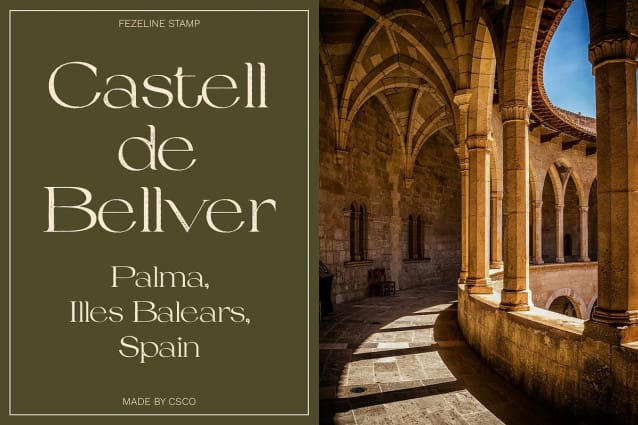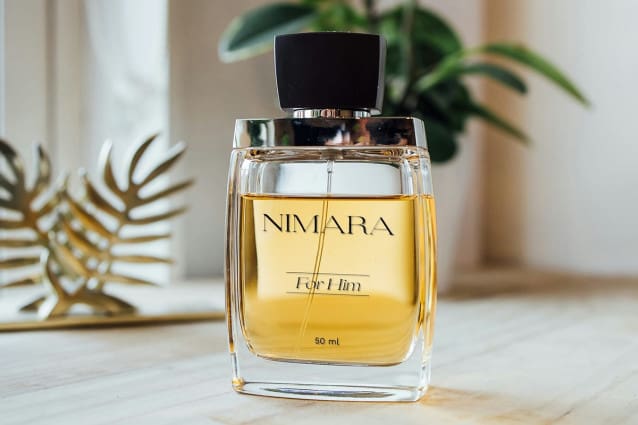
Fezeline Stamp Font
Fezeline Stamp Font is a modern serif font characterized by its wide and distinctive letterforms that exude a sense of classic elegance. The generous width of each character provides a commanding presence, making it ideal for designs where prominence and sophistication are key.
Unique Stamp Effect with a Grunge Twist What sets Fezeline Stamp apart is its innovative stamp effect, which infuses the traditional serif design with a grunge-inspired texture. This combination of classic and rugged elements creates a dynamic aesthetic that balances refined elegance with a hint of edginess. The stamp effect adds depth and character, enhancing the font’s visual impact.
Versatile for Branding and Creative Projects Fezeline Stamp is well-suited for a variety of design applications, from high-impact branding to creative poster designs. Its unique blend of elegance and rough texture makes it perfect for projects that require a strong visual statement. Whether used in promotional materials, packaging, or artistic displays, Fezeline Stamp delivers a distinctive look that captures attention and adds a touch of personality.